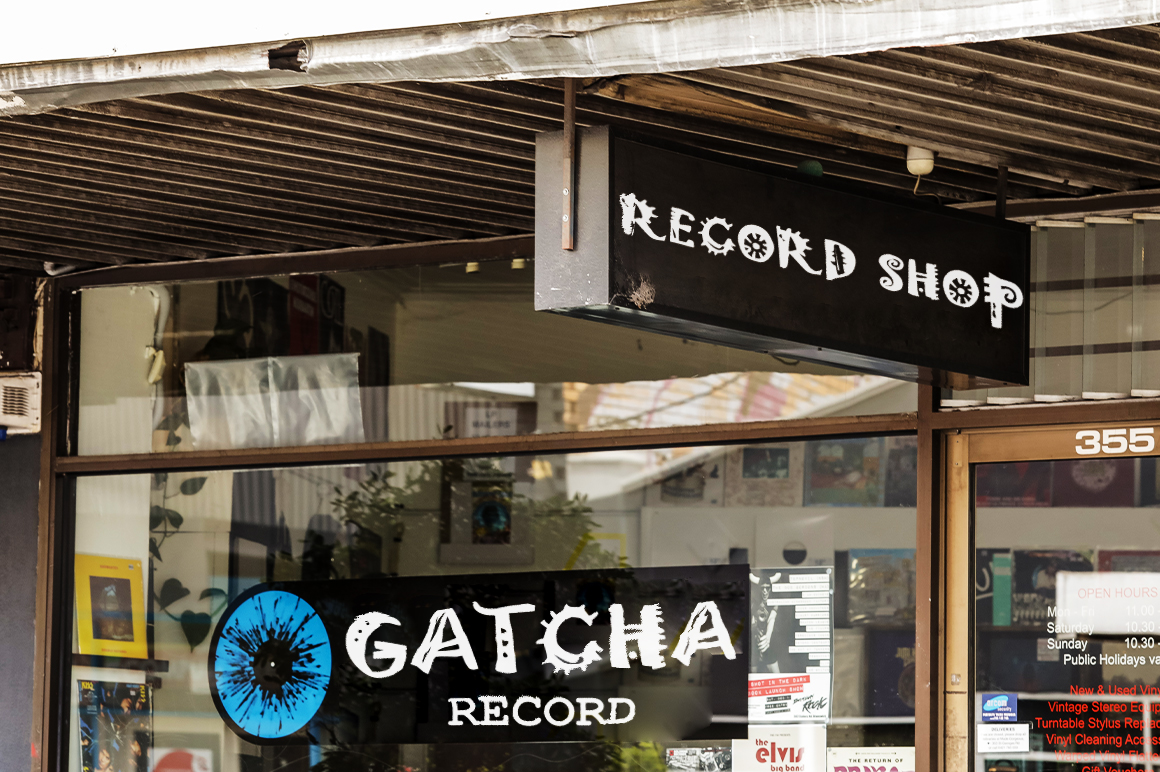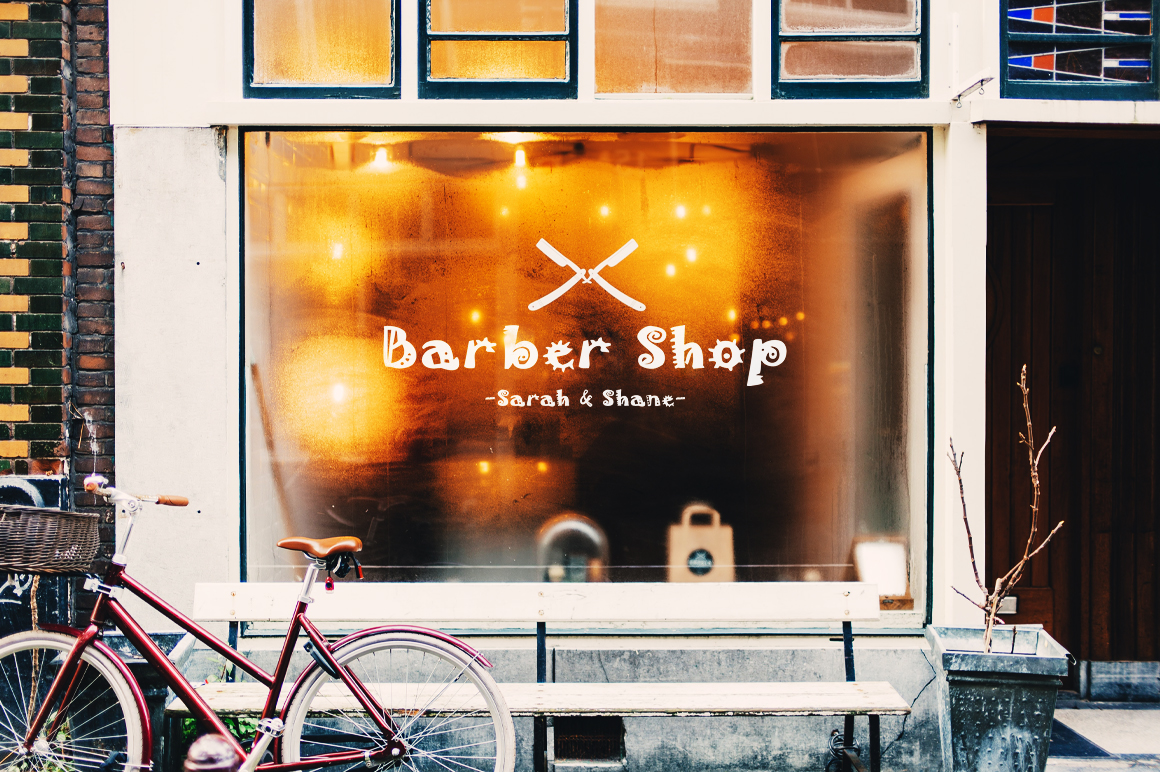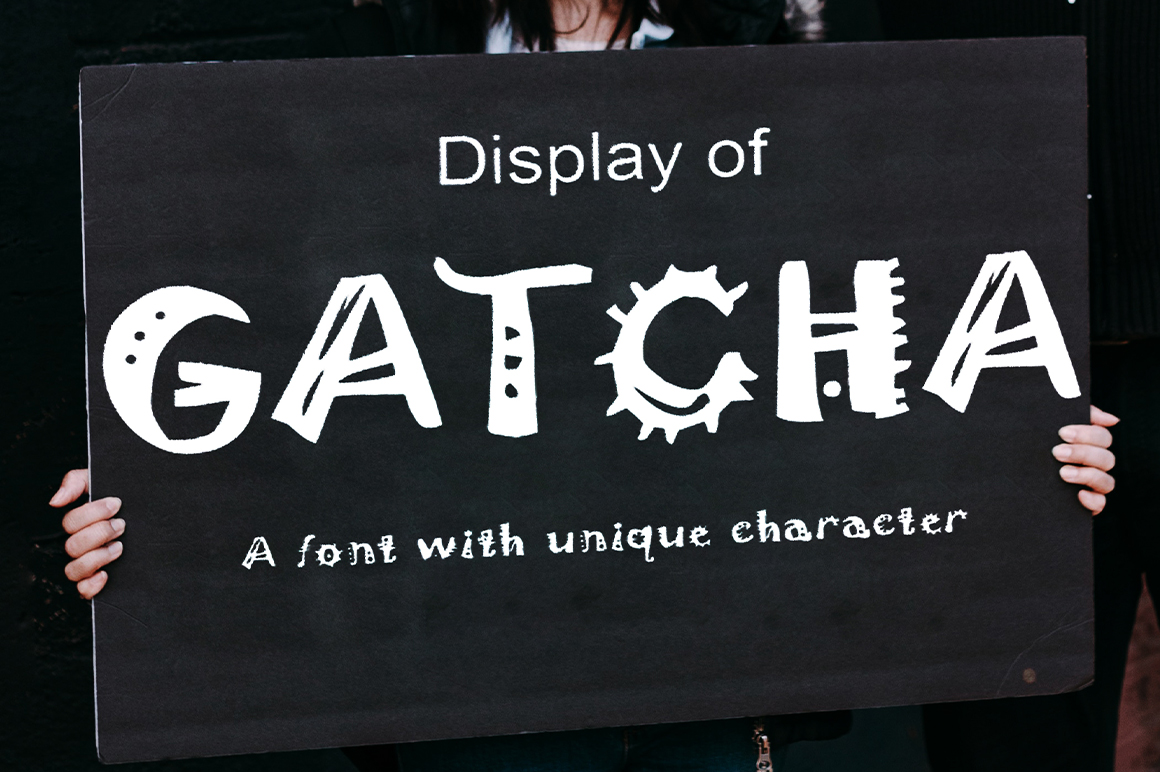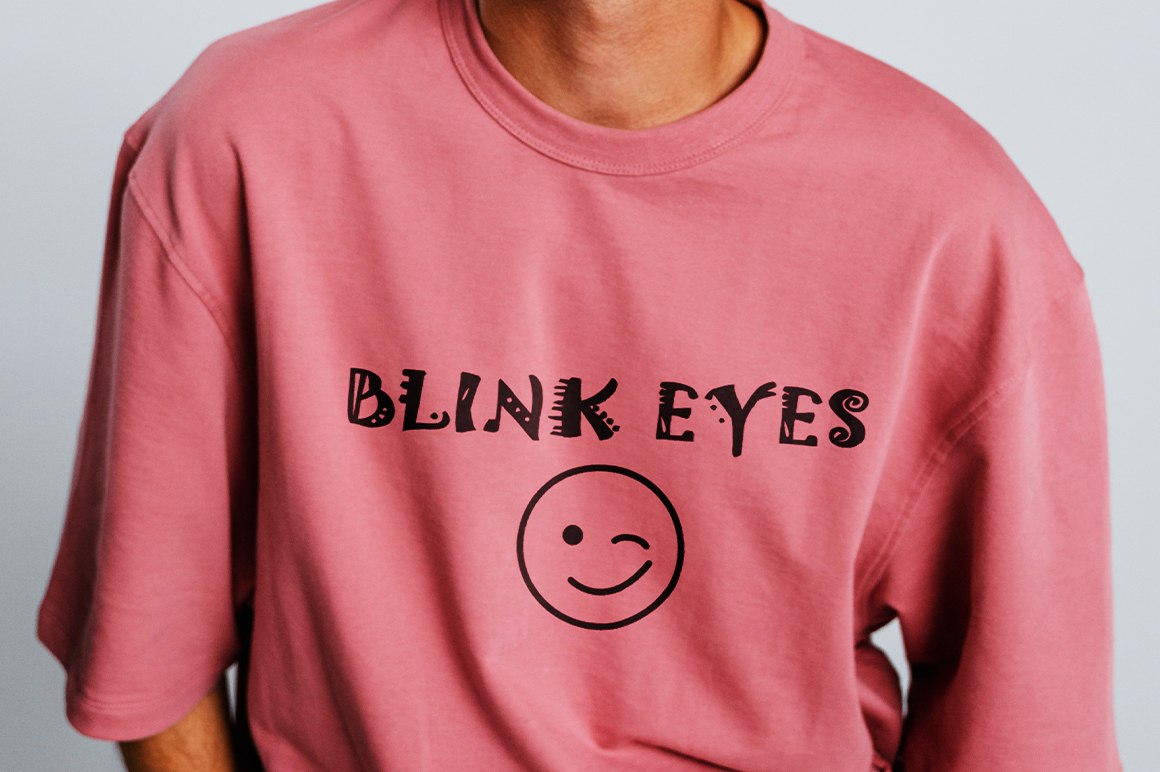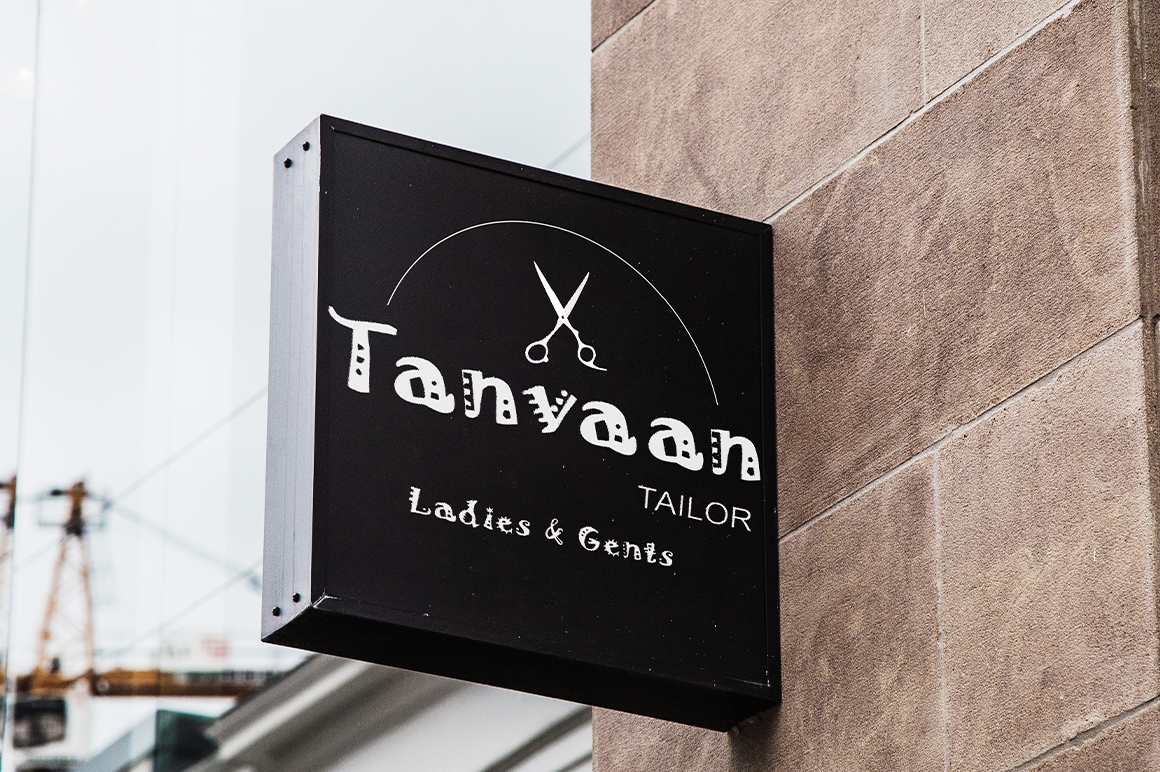
Gatcha Word Display Font
It’s a freestyle and cool display font. This font is perfect for vintage themes, t-shirt designs, comic book covers, logos & branding, product designs, labels, and more.